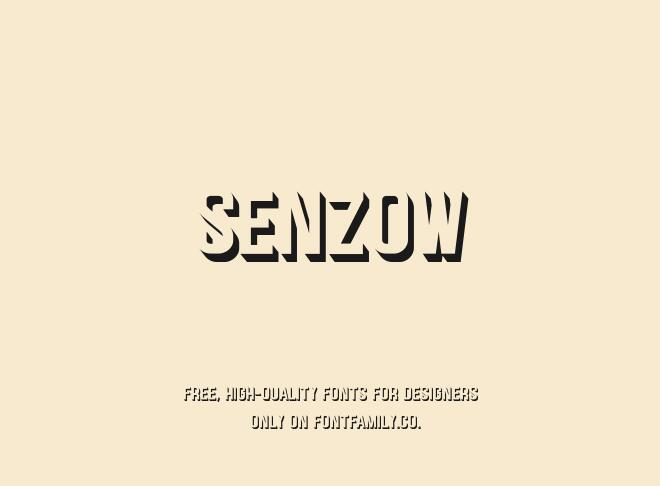
Senzow Font
Senzow Font is a modern, display, sans serif typeface designed by Senzow Design Studio. With its clean lines and bold shapes, Senzow Font is a versatile choice for designers. It brings a sleek, contemporary feel to any design, making it ideal for use in branding, web design, and advertising. Despite its modern aesthetic, Senzow Font retains a friendly, approachable quality, setting it apart from other sans serif fonts. Its unique character design offers a fresh take on minimalist typography, creating an impactful visual experience. Whether you're creating a logo or designing a website, Senzow Font provides a professional, stylish look that's sure to impress. Free for personal use, Senzow Font is a must-have addition to any designer's toolkit.